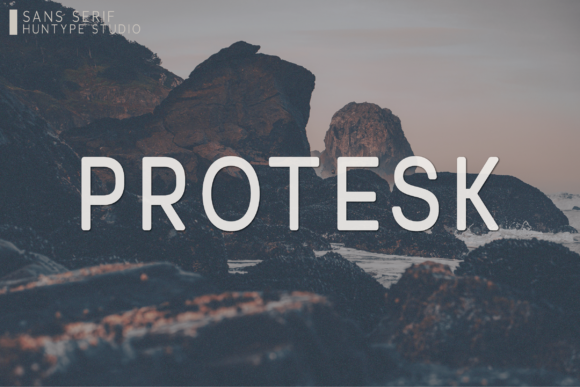
Unleash the Power of Protesk: The Ultimate Sans Serif for News Headlines!
In a world of visual clutter and information overload, headlines are the beacon of clarity that guides readers to your story. Protesk Font, the latest masterpiece from Huntype, emerges as the ultimate sans serif font, crafted to captivate and convey in the dynamic realm of news headlines.
With its commanding all-caps presence, Protesk exudes authority and demands attention. Its clean, smooth lines create a crisp and modern aesthetic that cuts through the noise, ensuring your headlines shine like a beacon of clarity. This font understands the nuances of news; it's sharp and crisp, yet subtly playful, adding a touch of intrigue to draw readers in.
Protesk's versatility extends beyond news headlines. Its robust character set and extensive language support make it a global communicator, perfect for branding, logos, and web headings. This font speaks to the modern, tech-savvy audience, resonating with their desire for simplicity and impact.
Embrace Protesk and elevate your headlines to new heights. Its intuitive design and effortless readability ensure that your message is communicated with precision and impact, leaving an indelible mark on the minds of your readers. Experience the Protesk difference today and watch your headlines transform into captivating gateways to compelling stories.